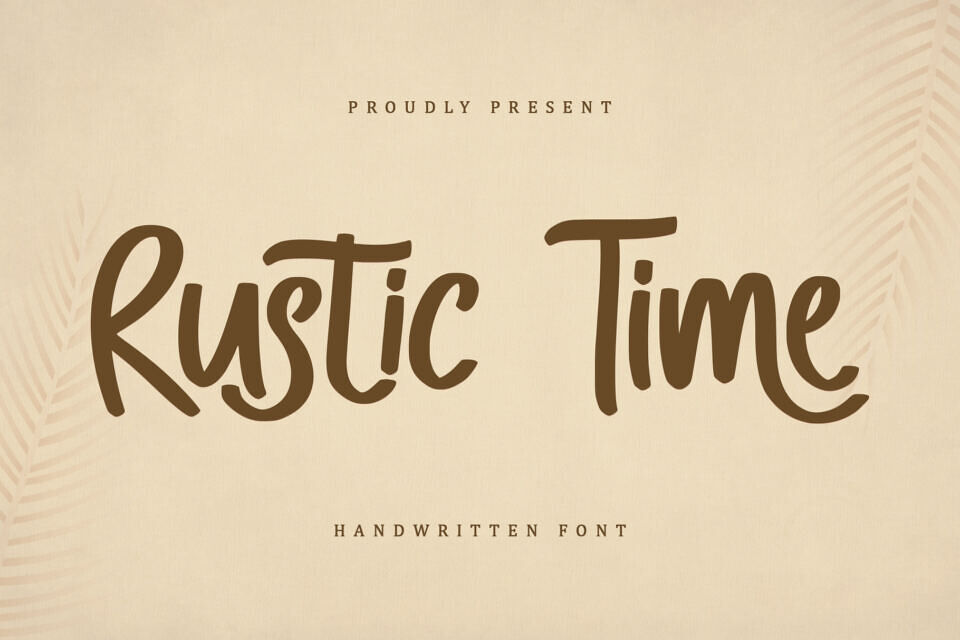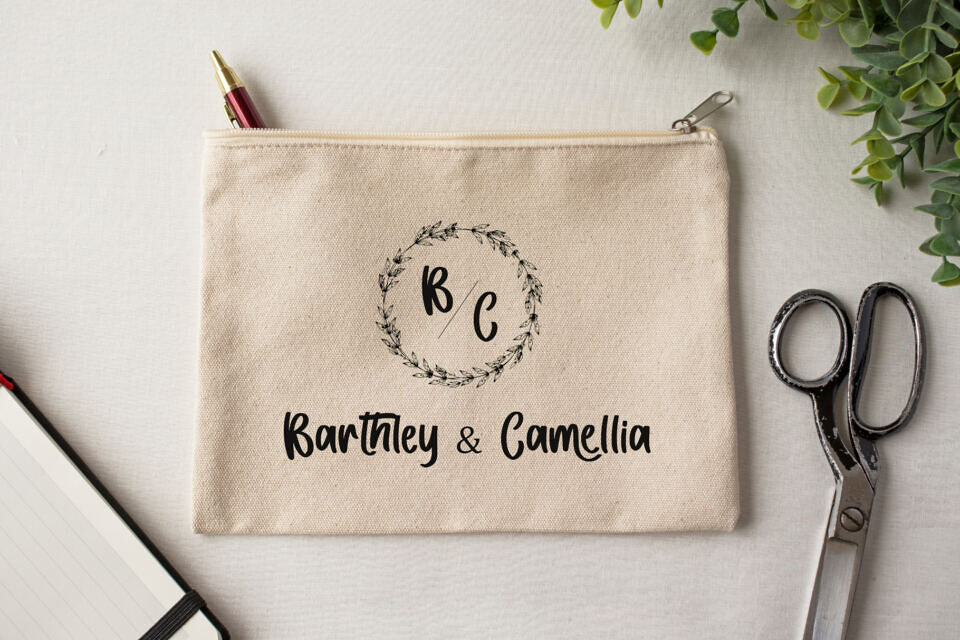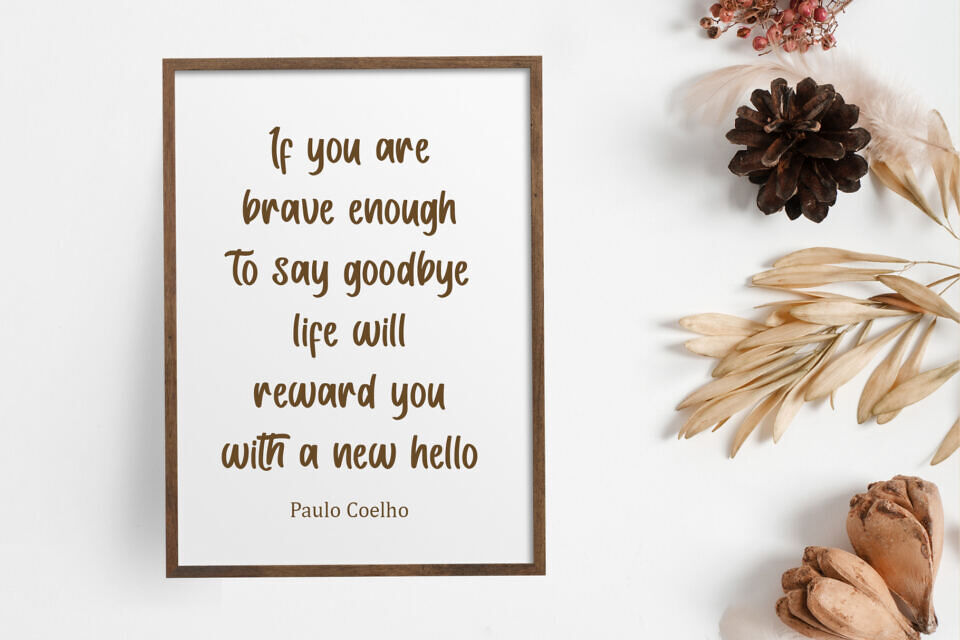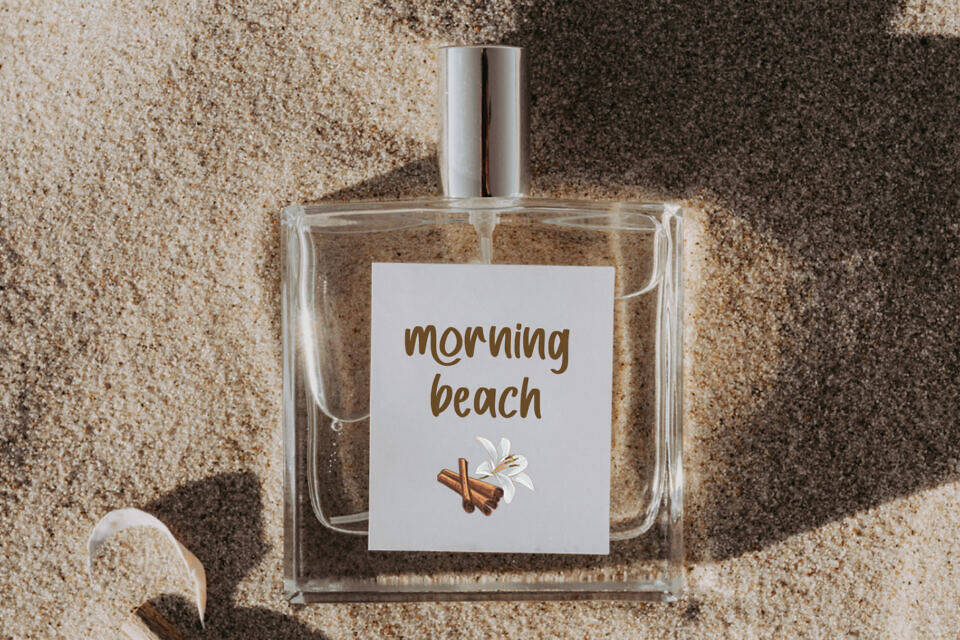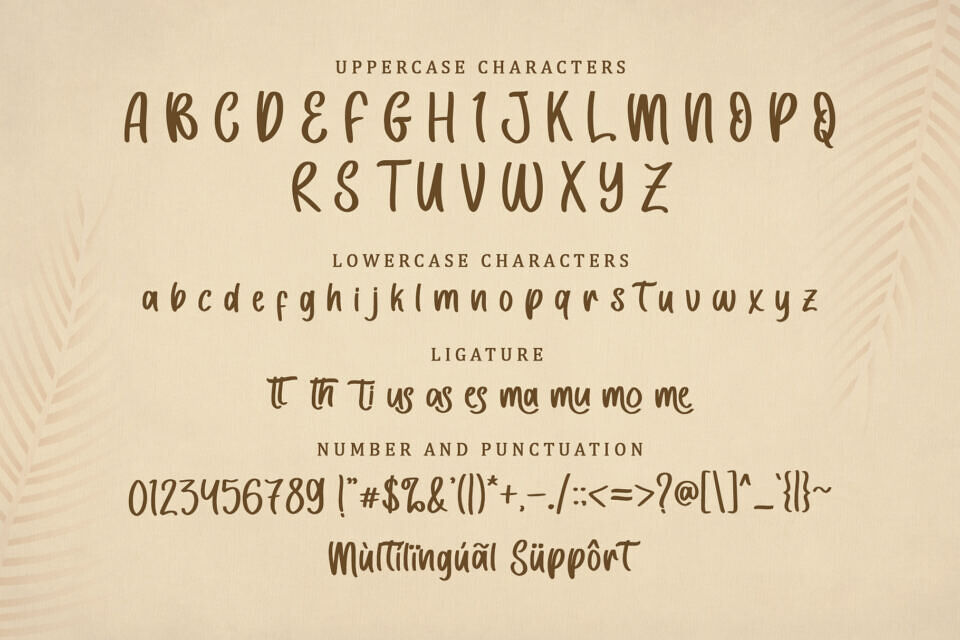
Rustic Time is a modern and casual script font that brings a retro feel to any design. Its imperfect brush strokes and playful curves give off a carefree and effortless vibe. Perfect for advertisements and designs that require a touch of nostalgia and whimsy.